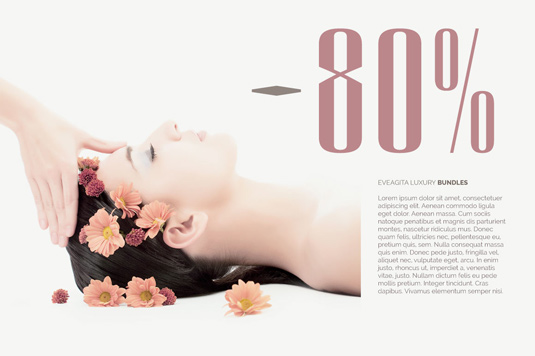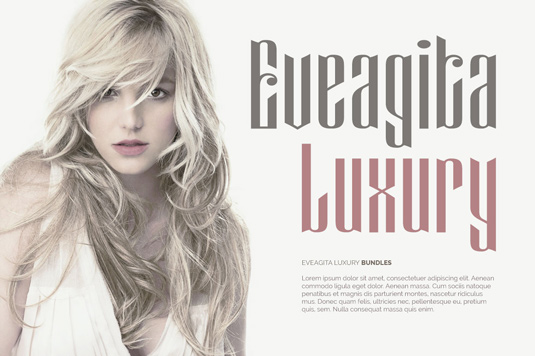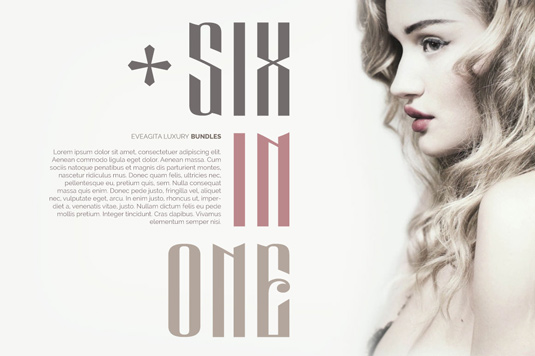
Font of the day: Eveagita Luxury
Every day we showcase the best fonts on the web. Today it's Eveagita Luxury by M Fairuzulhaq.
Eveagita Luxury by M Fairuzulhaq
This luxury display font Eveagita Luxury was developed by freelance graphic designer M Fairuzulhaq. The Eveagita font family includes six weights; thin, regular, bold, cap thin, cap regular and cap bold.